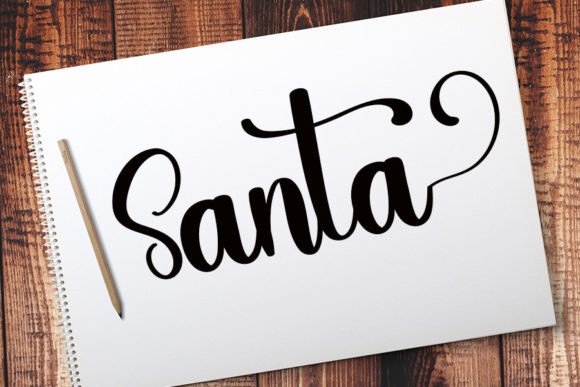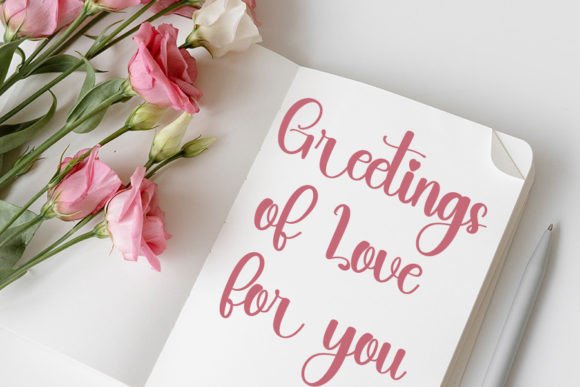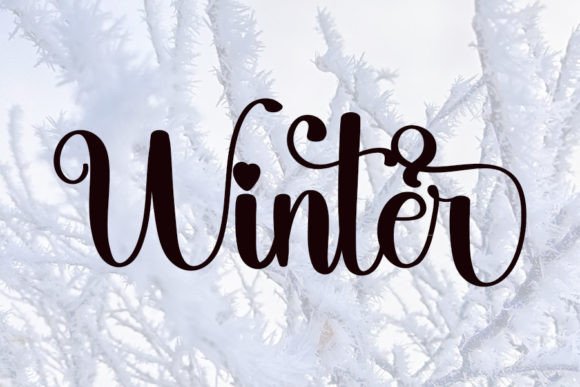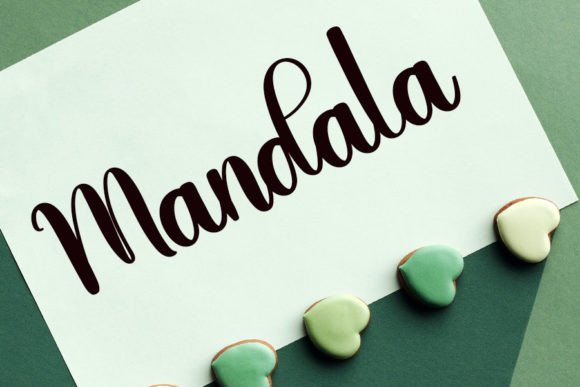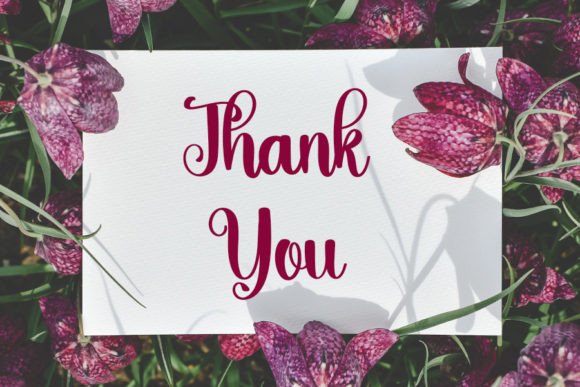
Introducing Christmas Lighter Font: The Ultimate Casual Script Font for Your Creative Projects
Are you looking for a font that exudes a sense of casual elegance and versatility? Look no further than the Christmas Lighter Font! This beautiful script font is perfect for designers and crafters who want to add a touch of warmth and personality to their projects. In this article, we’ll dive into the features and benefits of Christmas Lighter Font, and explore how you can use it to create stunning wedding invitations, stationary art, social media posts, and more.
What is Christmas Lighter Font?
Christmas Lighter Font is a casual and relaxed script font that is designed to be incredibly versatile. Its unique style is perfect for creating a wide range of projects, from formal wedding invitations to playful social media posts. The font’s casual vibe makes it ideal for designers and crafters who want to add a personal touch to their work.
Key Features of Christmas Lighter Font
• Versatile style: Christmas Lighter Font is designed to be versatile, making it perfect for a wide range of projects, including wedding invitations, stationary art, social media posts, and more.
• Casual and relaxed: The font’s casual and relaxed style makes it perfect for designers and crafters who want to add a personal touch to their work.
• Easy to read: Christmas Lighter Font is easy to read, making it perfect for body text and headlines.
• High-quality design: The font is designed with high-quality craftsmanship, ensuring that it looks great in any project.
How to Use Christmas Lighter Font
Christmas Lighter Font is perfect for a wide range of projects, including:
Wedding Invitations
Use Christmas Lighter Font to create beautiful and elegant wedding invitations that set the tone for your special day. The font’s casual vibe makes it perfect for formal and informal wedding invitations alike.
Stationary Art
Christmas Lighter Font is perfect for creating stunning stationary art, including greeting cards, thank you cards, and more. The font’s unique style adds a personal touch to any project.
Social Media Posts
Use Christmas Lighter Font to create eye-catching social media posts that stand out from the crowd. The font’s casual vibe makes it perfect for creating engaging and shareable content.
And More!
Christmas Lighter Font is versatile enough to be used for a wide range of projects, including party invitations, menus, brochures, and more. The possibilities are endless!
Why Choose Christmas Lighter Font?
• Unique style: Christmas Lighter Font has a unique style that sets it apart from other fonts.
• Versatility: The font is incredibly versatile, making it perfect for a wide range of projects.
• Easy to use: Christmas Lighter Font is easy to use and pairs well with a wide range of other fonts.
• High-quality design: The font is designed with high-quality craftsmanship, ensuring that it looks great in any project.